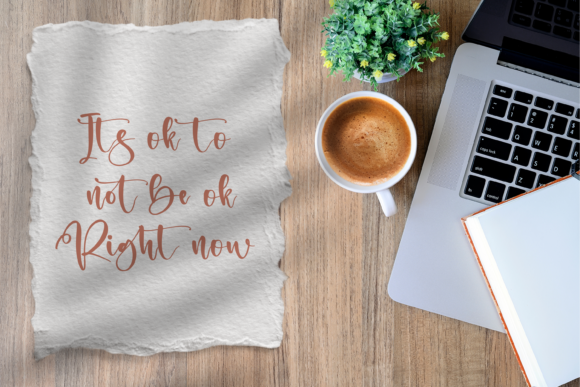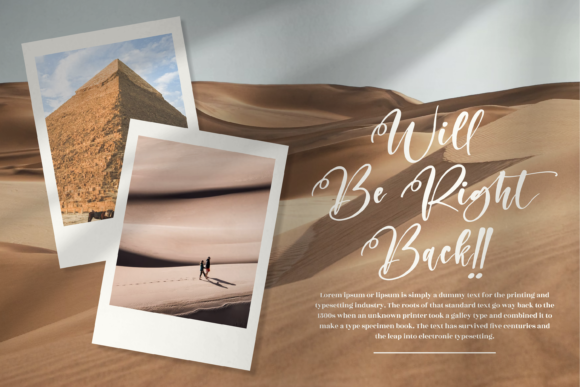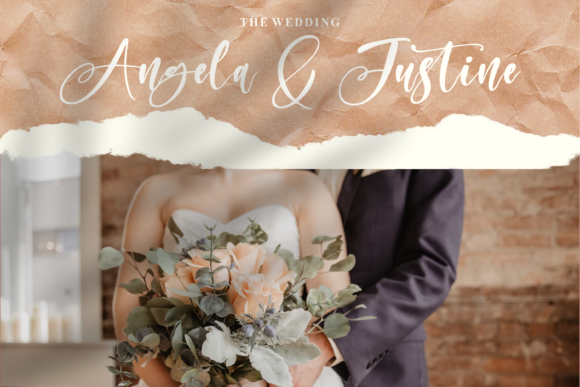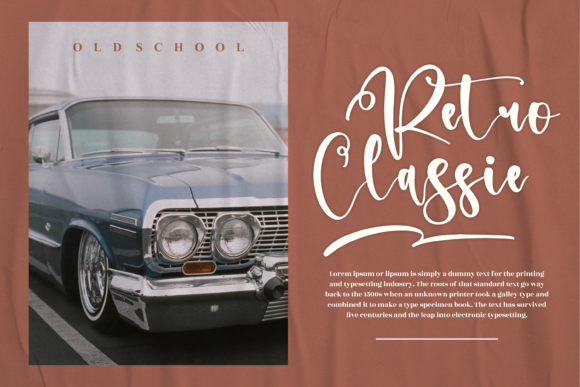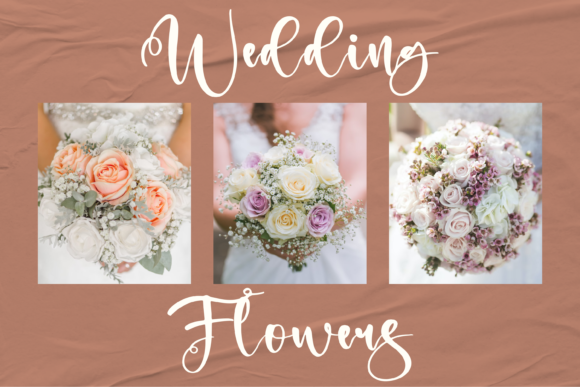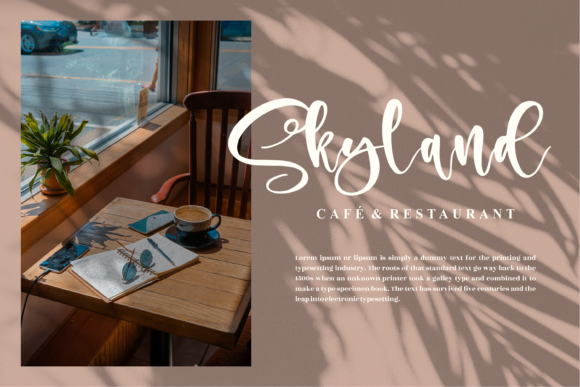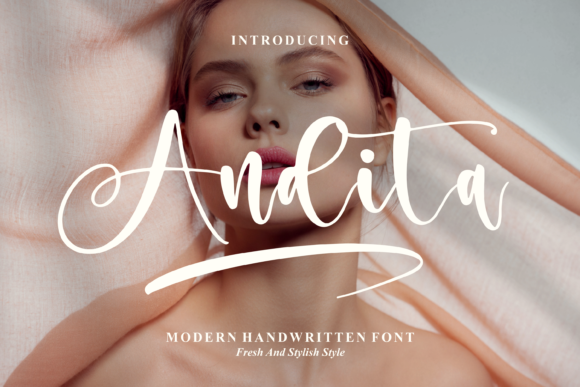
Discover the Elegance of Andita Font: A Perfect Choice for Designers and Crafters
Are you looking for a font that exudes charm and elegance? Look no further than the Andita Font. This beautiful, handwritten font is perfect for adding a personal touch to various design projects, from wedding invitations to business cards. In this article, we’ll dive into the features and benefits of the Andita Font, and explore how it can elevate your designs.
The Charm of Andita Font
Andita Font feels equally charming and elegant, making it an excellent choice for designers and crafters. Its unique, handwritten style adds a touch of sophistication to any design project. Whether you’re creating wedding invitations, thank you cards, quotes, greeting cards, logos, or business cards, Andita Font is sure to impress.
Versatility of Andita Font
One of the best things about Andita Font is its versatility. It can be used for a wide range of design projects, including:
- Quotes and social media graphics
Its elegant and charming style makes it perfect for any project that requires a handwritten touch.
Andita Font is PUA (Private Use Area) encoded, which means you can access all of the glyphs and swashes with ease. PUA encoding allows you to access additional characters and symbols that are not available in standard fonts. This feature makes it easy to customize your designs and add unique touches.
With PUA encoding, you can:
- Access a wide range of glyphs and swashes
- Customize your designs with unique characters
- Create stunning and intricate designs
Andita Font offers numerous benefits for designers and crafters, including:
- Elegant and charming style
- Versatility for various design projects
- PUA encoding for easy access to glyphs and swashes
- Perfect for adding a handwritten touch to designs
Tips for Using Andita Font
Here are some tips for using Andita Font in your designs:
- Use it for headings and titles to add a touch of elegance
- Pair it with other fonts to create a unique and interesting combination
- Use it for body text to create a warm and inviting feel
| Font Name | Andita Font |
| Author | Letternity |
Andita Font is a beautiful and elegant font that is perfect for designers and crafters. Its charming and sophisticated style makes it ideal for adding a handwritten touch to various design projects. With its PUA encoding and versatility, Andita Font is a great choice for anyone looking to create stunning and unique designs.